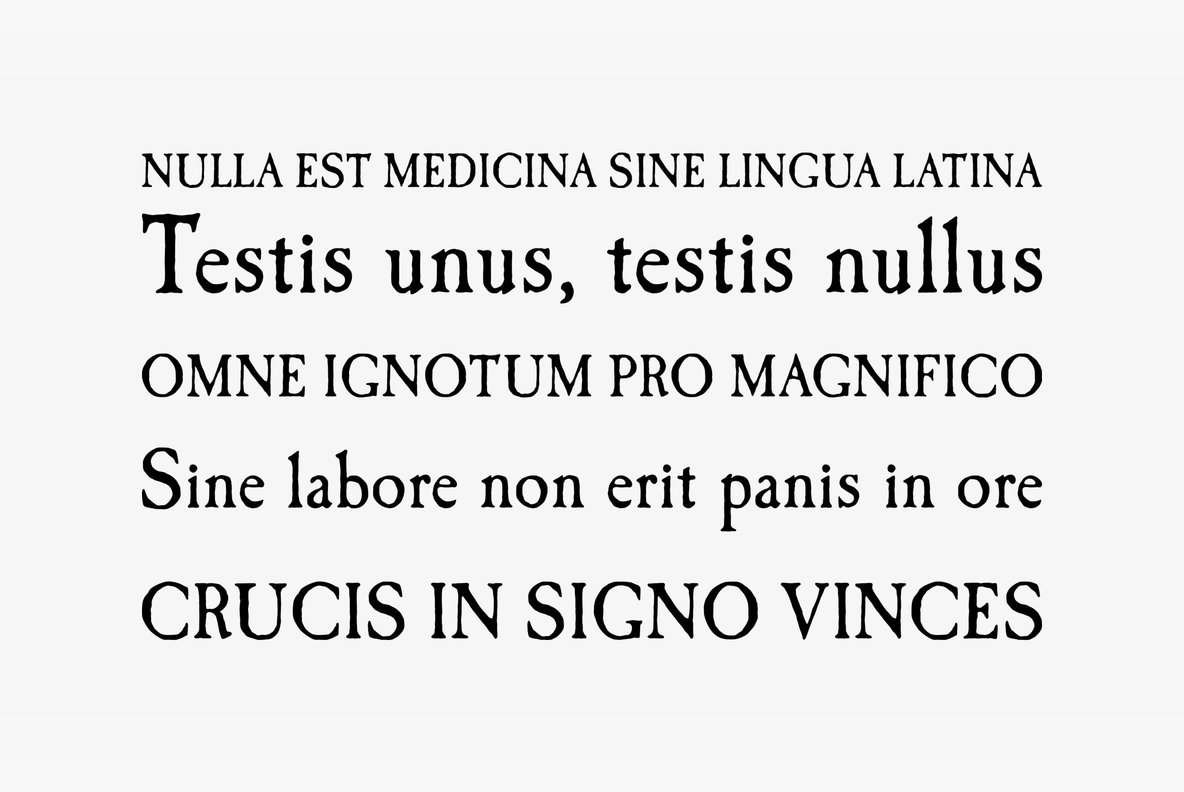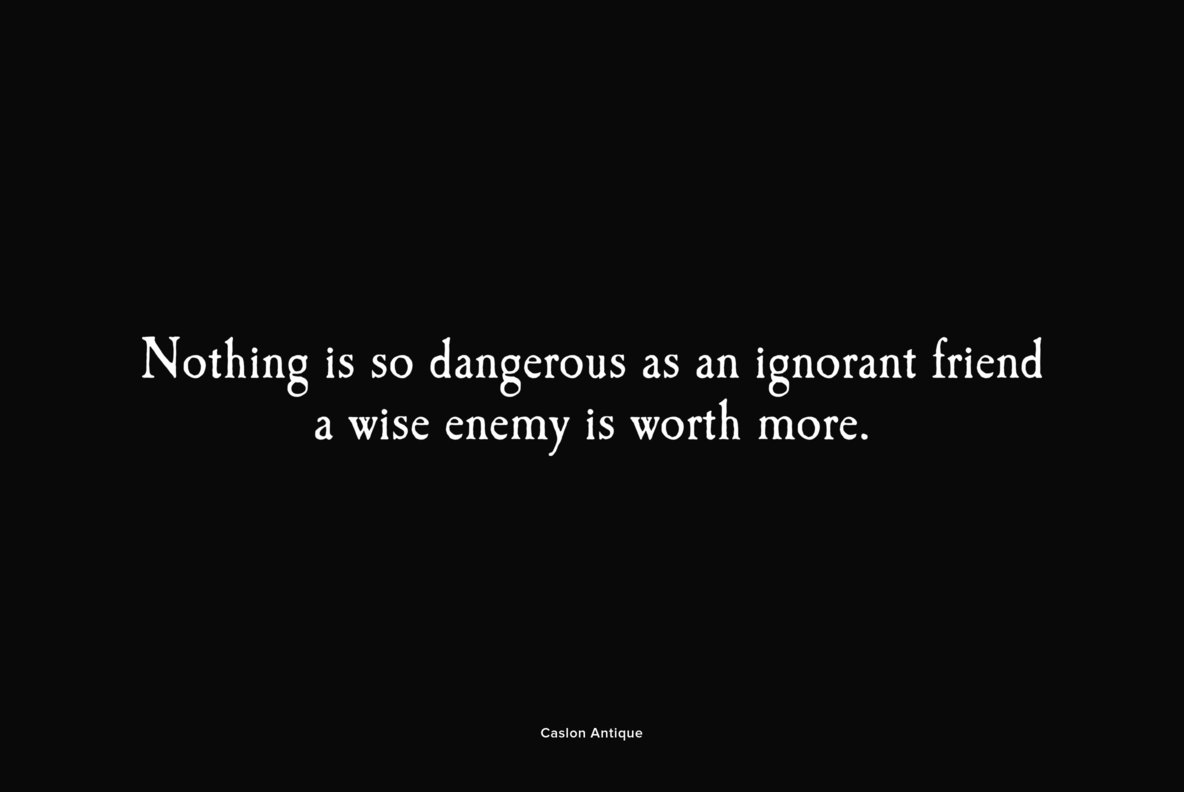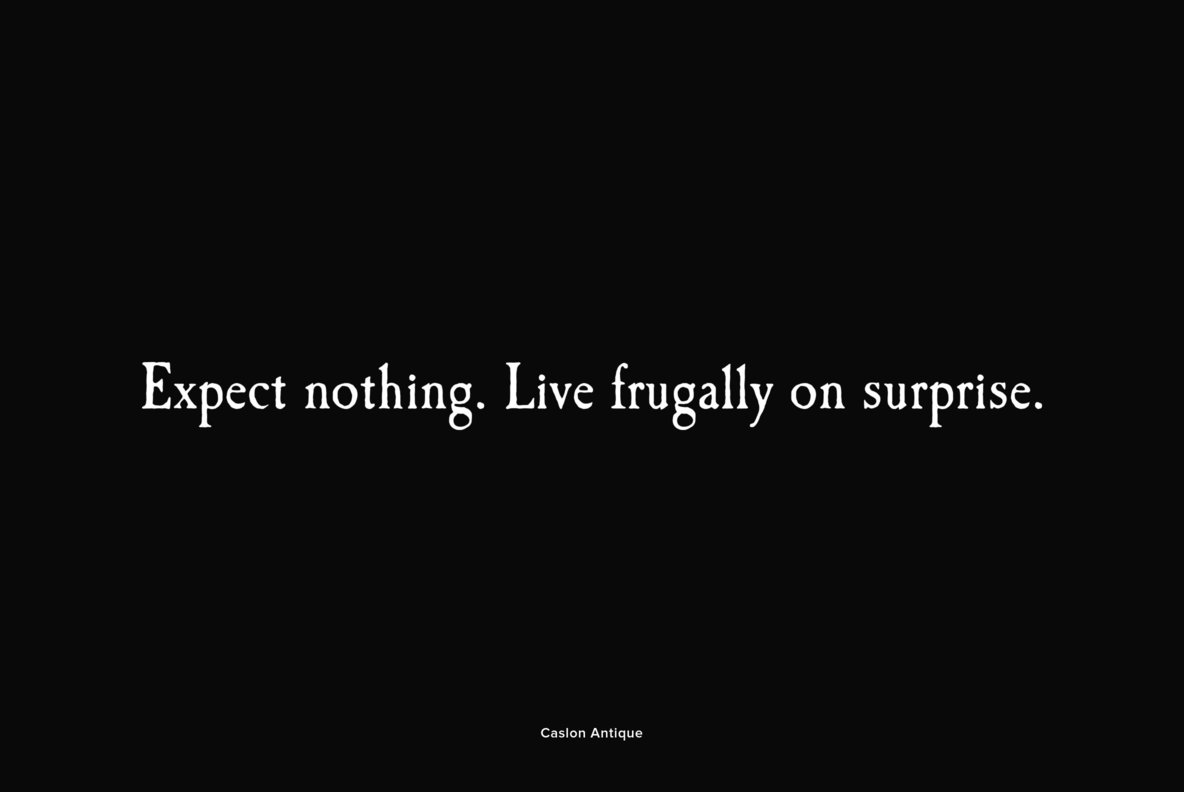
Caslon Antique
Designed by URW Studio in 1990 (William Caslon), Caslon Antique is an interesting and distressed serif font release. Contains language support for West, East, Turkish, Baltic, and Romanian.